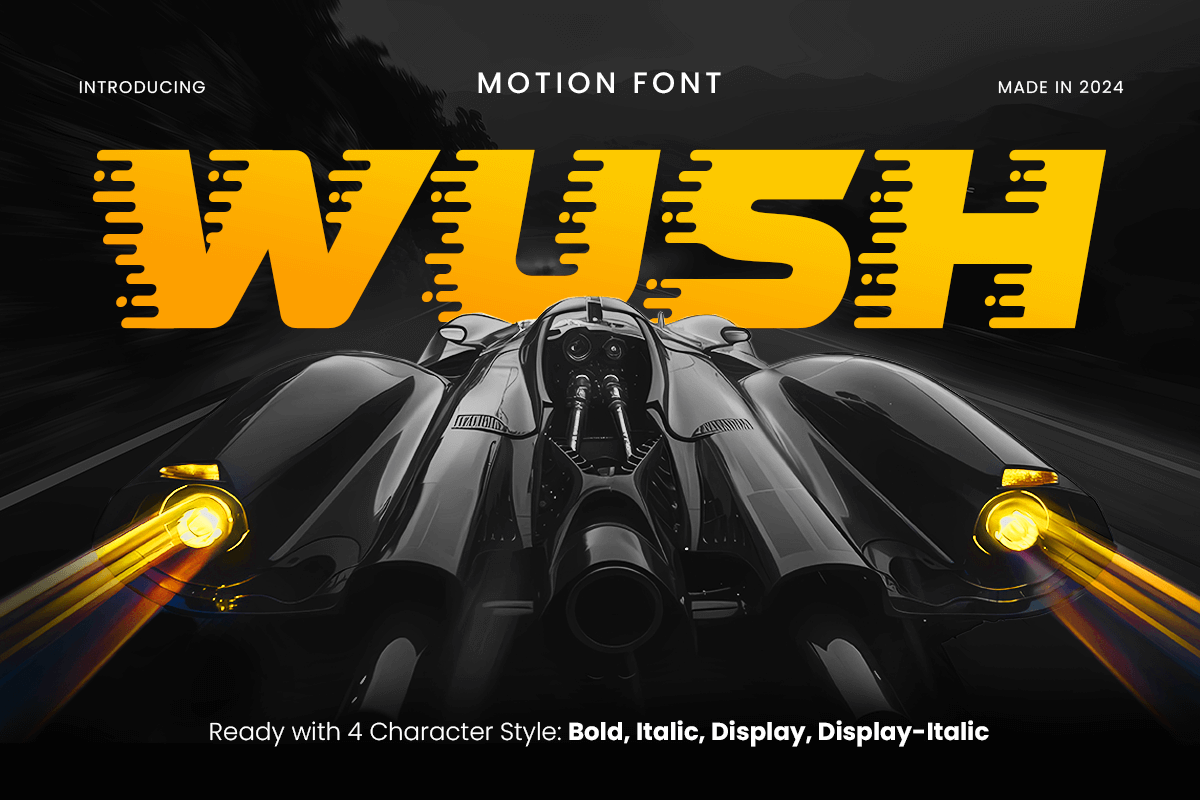
Wush
-Motion Font
Wush is a dynamic motion font created to bring energy and movement to your designs. Its unique character shapes are ideal for projects that need an eye-catching, contemporary touch, from animated titles to bold branding. With a focus on fluidity and visual impact, Wush captures attention and delivers a lively, modern feel to any visual presentation.
Perfect for motion graphics, digital advertisements, and innovative design projects, Wush offers versatility and a creative edge. Whether used in video content or as a static display, this font adds a sense of speed and excitement, embodying the essence of modern kinetic design. Elevate your projects with Wush, where motion and style converge. Let your creative work resonate with energy and modernity through this unique and impactful typeface.
Wush Motion Font Features:
• Dynamic and Energetic Character Designs
• Ready with 4 Style: Regular, Italic, Display, Display Italic
• Punctuation, Number, and Symbol